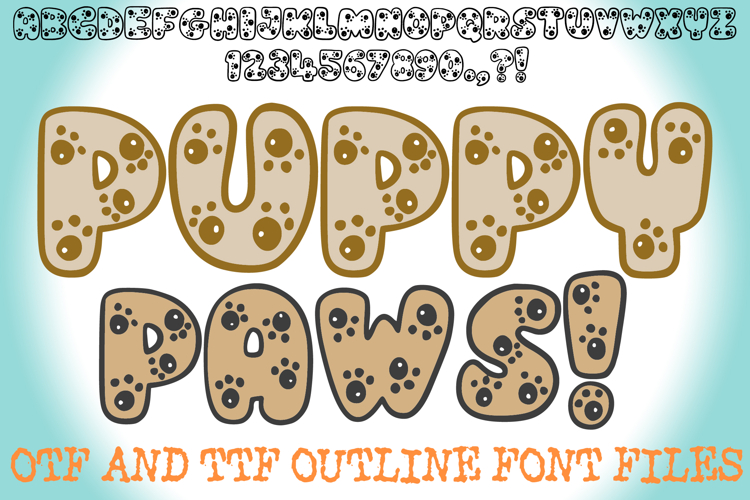
Puppy Paws Handwriting Alphabet Lettering ABC Footprints OTF
Unleash a wave of adorable fun with Puppy Paws Font! This utterly charming typeface is perfect for all animal lovers, featuring plump, bubbly letterforms delightfully patterned with cute little paw prints. It's more than just a font; it's an instant dose of puppy love, designed to bring heartwarming cuteness, playful energy, and an undeniable sprinkle of joy to any creative project!
Each character in Puppy Paws Font is crafted with a sweet, rounded outline, and its interior is covered in charming paw print patterns, creating a unique and endearing visual effect. This makes it an ideal choice for pet store branding, dog grooming salons, animal rescue events, children's books, nursery decor, pet-themed party invitations, or any design calling for a unique blend of cuteness, affection, and playful charm.
Whether you're creating lively event promotions, designing adorable product packaging for pets, crafting loving social media posts for animal organizations, or adding a cheerful touch to digital art, this font will bring an undeniable sense of fun, originality, and a vibrant, affectionate aesthetic to your work. Its clear yet bubbly forms ensure readability while delivering a memorable visual experience.
If you're looking to infuse your designs with a sense of playful warmth, charming cuteness, and an undeniable touch of puppy love, Puppy Paws Font is your ultimate tool. Let your creativity run wild and bark with delight!